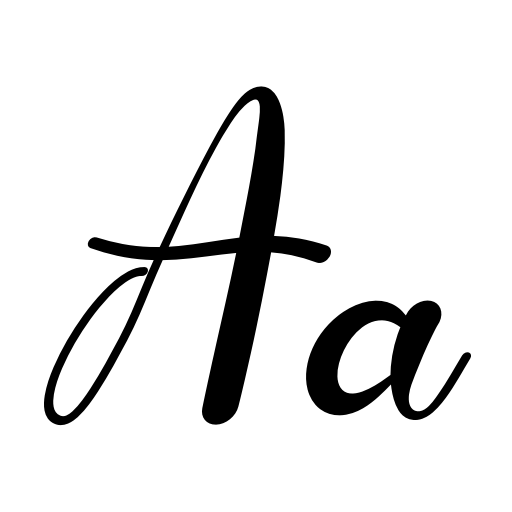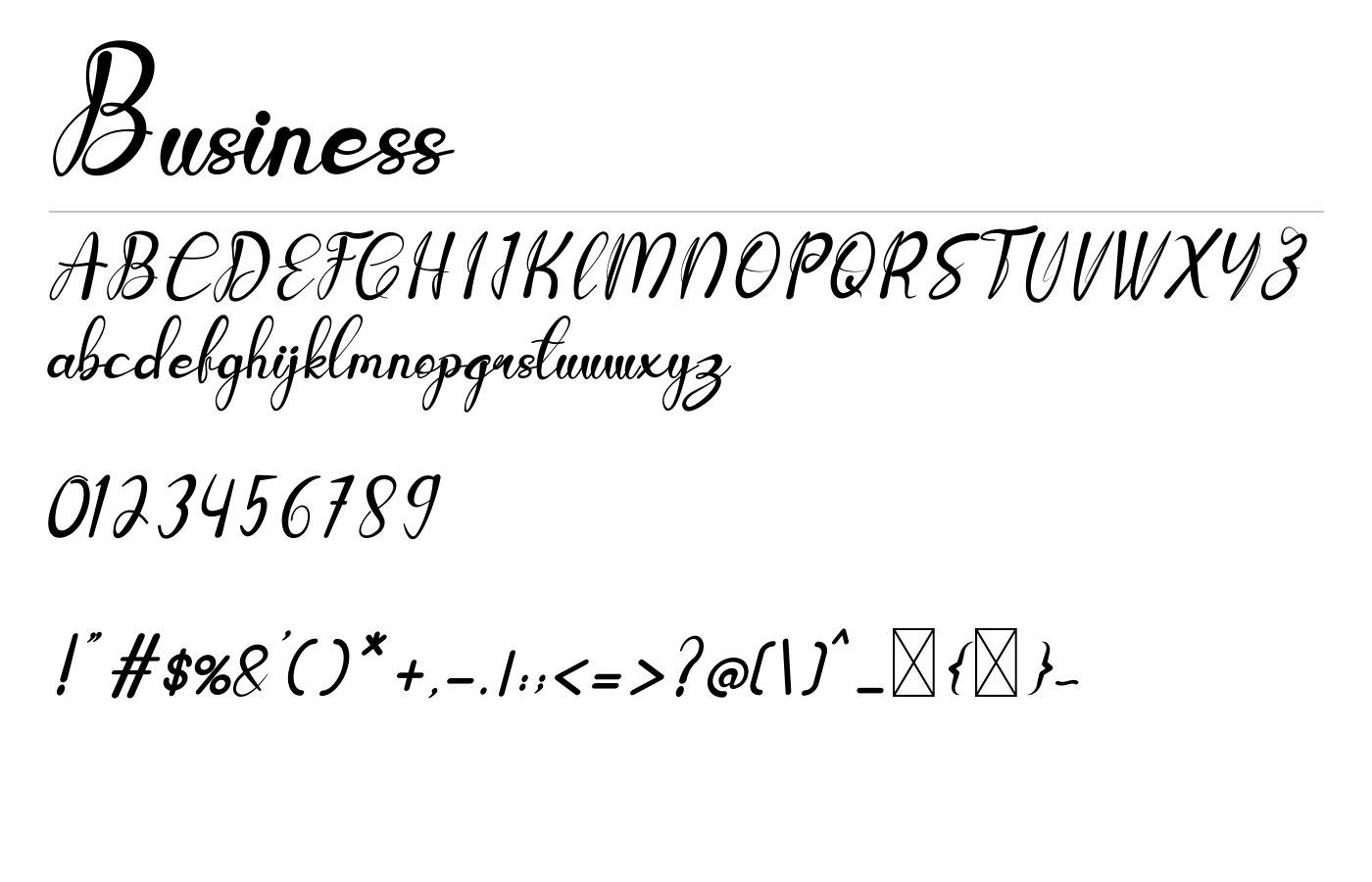
Business Font is a delicate script typeface characterized by its elegant, flowing strokes and moderate contrast that evoke a refined and stylish impression. With its smooth, handwritten appearance and graceful curves, it works well for invitations, branding, and decorative headlines, lending a sophisticated yet approachable feel to any design. This font is ideal for projects seeking a touch of personal elegance and charm.
Business Font
About Business Font
| Font family | Business Font |
| Designer | designvector10 |